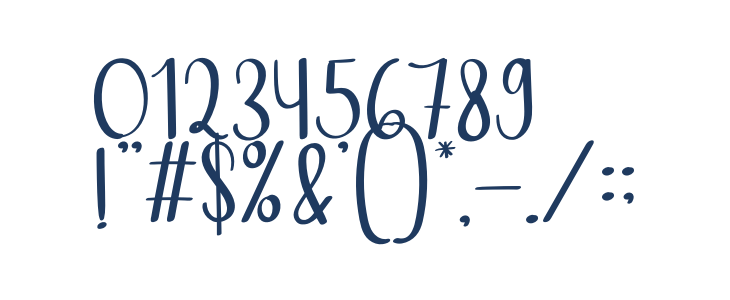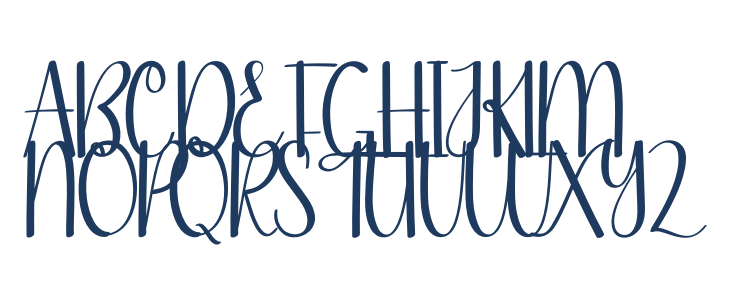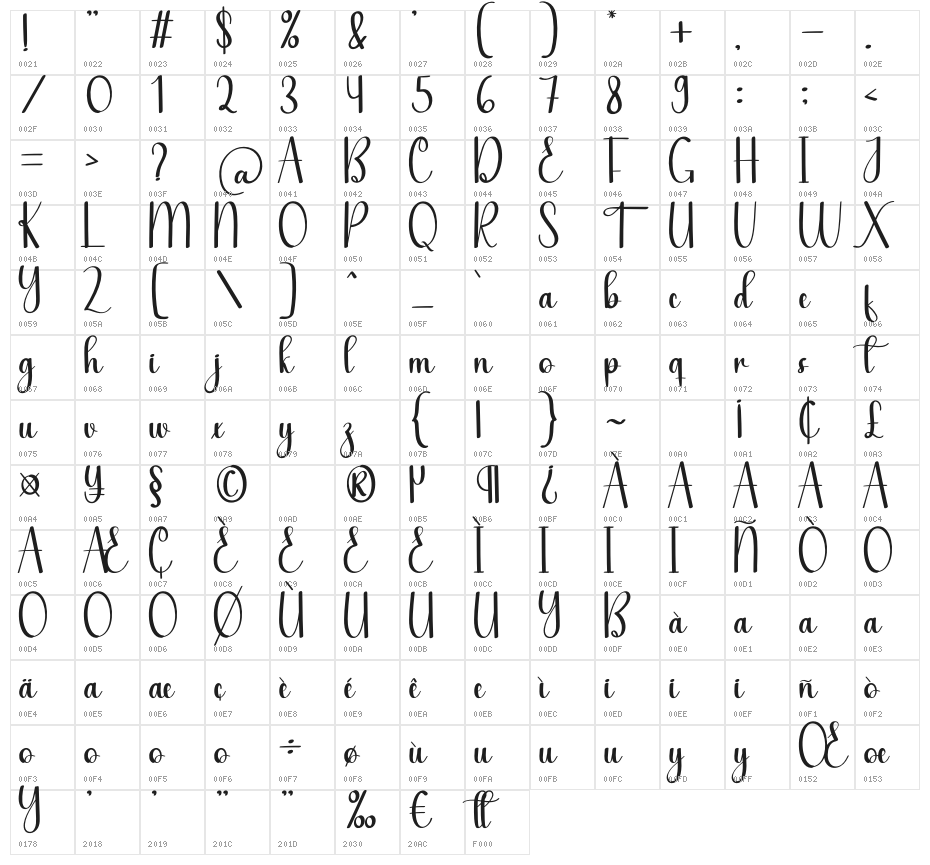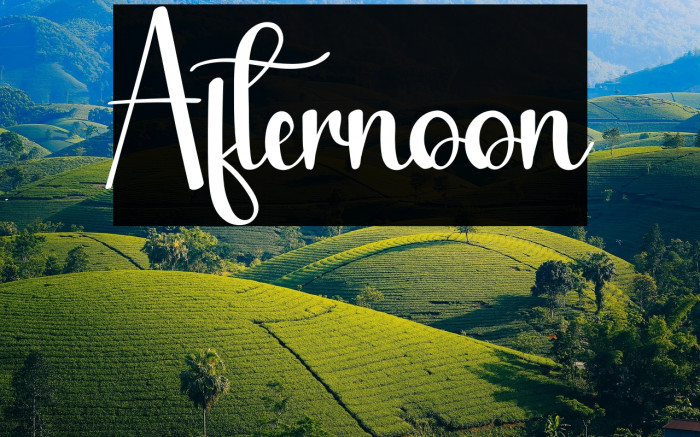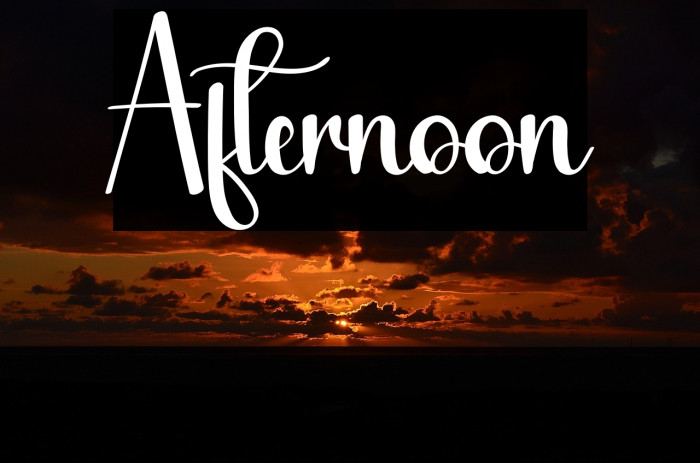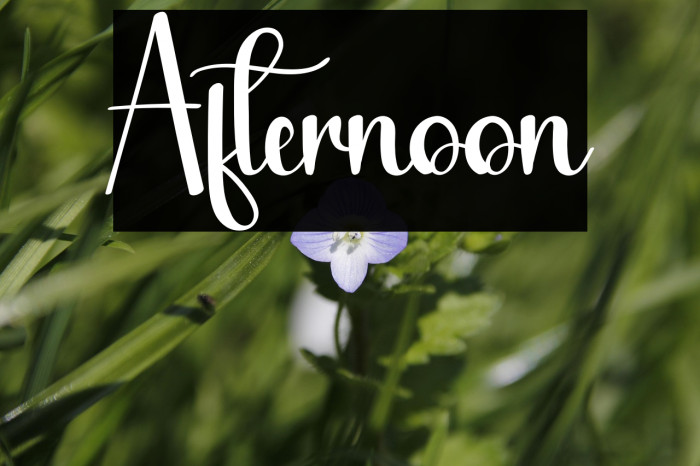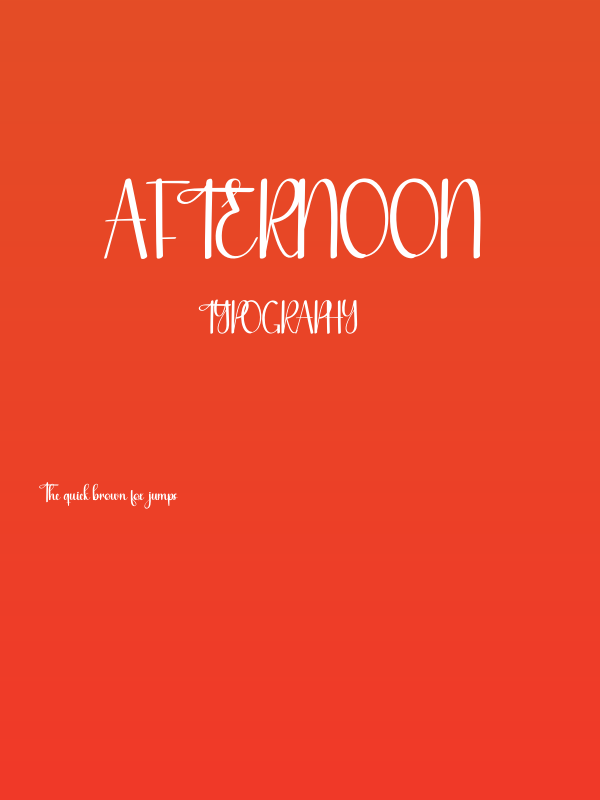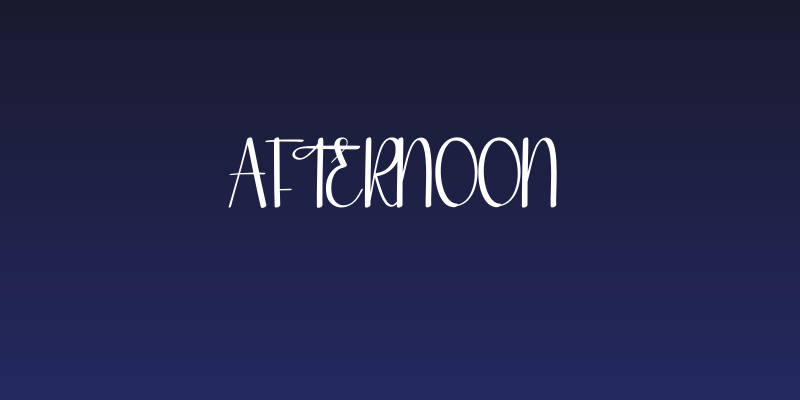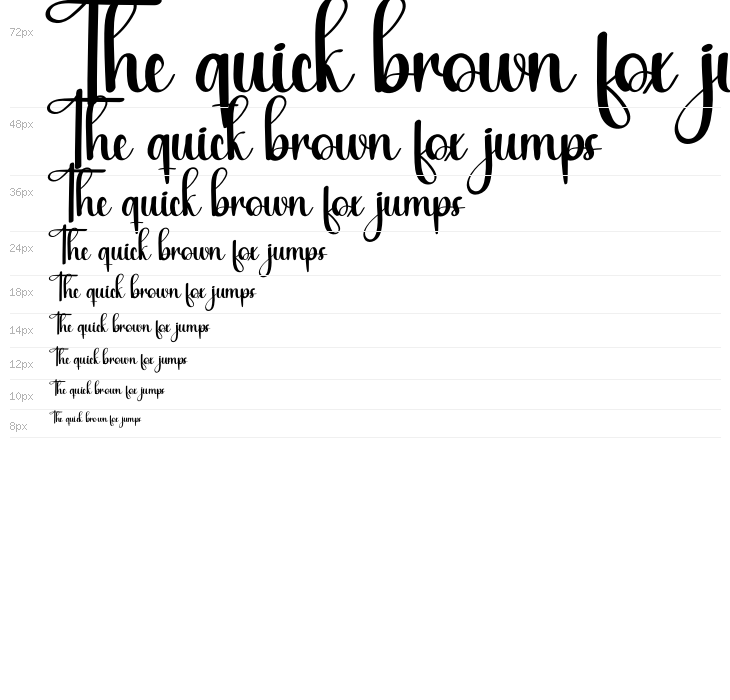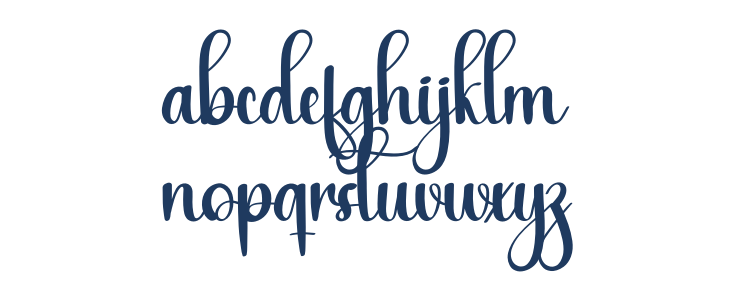
Afternoon Font
Afternoon Description
A playful, handwritten script font with tall, narrow letterforms and flowing, connected strokes. The uppercase letters are especially elongated, while the lowercase letters feature expressive loops and swashes. The numerals and punctuation maintain the same whimsical, casual style.
| Overall Style | Decorative, Playful, Modern |
| Use Case | Logos, Headlines, Invitations, Decorative text |
| Proposed Projects | Greeting cards, invitations, branding for creative businesses, social media graphics, decorative quotes. |